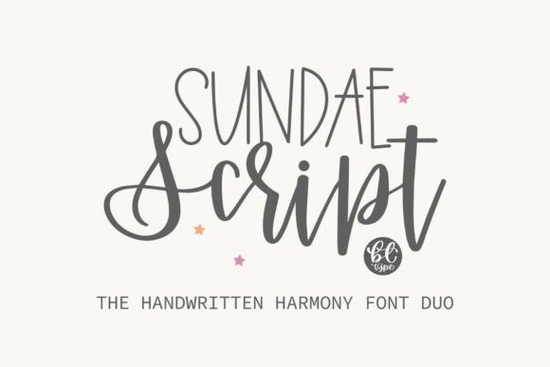
If you're looking for a playful yet polished handwritten font duo that works beautifully across digital planners, greeting cards, or Cricut projects, the Sundae Script Duo Font might be just what your creative toolkit needs. Designed with balance and charm in mind, this pair blends a bouncy brush script with a clean sans serif offering both personality and practicality in one download.
The set includes two complementary fonts: Sundae Script, which mimics the natural flow of real handwriting with its lively, brush-pen bounce, and Sundae Sans, a tall, minimal sans serif with delicate strokes that pairs seamlessly with the script. Whether you use them together for contrast or separately for simplicity, they bring a light, cheerful vibe to any design.
What kinds of projects work best with Sundae Script Duo?
This font duo shines in personal and small-business creative work where approachability matters. Think:
- Digital planners and journal spreads – The script adds warmth to headers, while the sans keeps body text tidy and readable.
- Handmade greeting cards – Layer the fonts for birthday messages, thank-you notes, or seasonal greetings with visual interest.
- Cricut and vinyl crafts – Both fonts cut cleanly and scale well, making them reliable for mugs, tote bags, or wall decals.
- Print-on-demand products – Use them on stickers, notebooks, or apparel where a friendly, handmade aesthetic stands out.
If you enjoy fonts like Strawberry Crumble or Preppy Barbie, you’ll likely appreciate Sundae Script’s similarly upbeat energy but with a slightly more restrained, versatile feel.
How does it compare to other handwritten duos?
Many script-and-sans pairings lean heavily into whimsy or trendiness, but Sundae Script Duo strikes a middle ground. The script has bounce without being overly loopy, and the sans avoids stark minimalism by blending uppercase and lowercase letters naturally. This makes it easier to read at smaller sizes a common pain point with decorative fonts.
For example, if you’ve used BohoBaby for its organic flow or Beautiful Garden for its elegant swashes, Sundae Script offers a lighter, more everyday alternative. It’s less ornate, which actually increases its usability across casual and semi-professional contexts.
And unlike some Valentine’s-themed fonts like Barbie Valentine’s Outline, Sundae Script isn’t tied to a single season or theme it’s neutral enough for year-round use while still feeling fresh and personal.
Tips for using both fonts effectively
To get the most out of this duo, consider these simple guidelines:
- Use Sundae Script for emphasis headlines, names, or short phrases where its character can shine without overwhelming the layout.
- Pair Sundae Sans with ample spacing. Its thin strokes benefit from generous line height and letter spacing, especially in body text.
- Avoid all caps in the script. Like most handwritten fonts, it’s designed with mixed case in mind for natural rhythm.
- Test print or cut samples first. While both fonts are optimized for digital and physical media, always check how fine details render on your specific printer or cutting machine.
Because both fonts share consistent x-heights and stylistic harmony, switching between them feels intuitive no awkward scaling or alignment fixes needed.
Who should consider this font duo?
It’s especially useful for:
- Planner creators who want a friendly but legible header style.
- Crafters making personalized gifts or party decor.
- Small shop owners designing product labels, social graphics, or packaging with a handmade touch.
- Hobbyists exploring typography without diving into complex licensing or technical hurdles.
Before you download, here’s a quick checklist to make sure Sundae Script Duo fits your needs:
- ✅ You need a readable script that doesn’t sacrifice personality.
- ✅ You want a matching sans serif that’s not too sterile.
- ✅ Your projects include both digital and physical outputs.
- ✅ You prefer versatile, year-round fonts over highly themed ones.
If that sounds like you, this duo could become a go-to in your font library sweet without being sugary, simple without being boring.